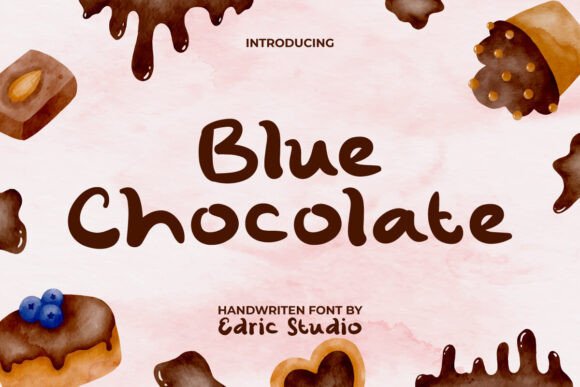
Introducing Blue Chocolate Font: The Sweetest Addition to Your Design Collection
Are you on the hunt for a font that’s as delightful as it is versatile? Look no further than Blue Chocolate Font, a beautiful bubbly typeface that’s sure to add a touch of whimsy to any design project. In this article, we’ll dive into the features and benefits of Blue Chocolate Font, and explore the many ways you can use it to elevate your designs.
A Font That’s as Sweet as Chocolate
Blue Chocolate Font is a carefully crafted typeface that comes with a full set of uppercase and lowercase basic characters, numbers, punctuation, and symbols. This means you can use it for a wide range of design projects, from creating eye-catching ads and animations to crafting charming invitations and packaging. The font’s playful, cursive style is reminiscent of childhood treats and happy memories, making it perfect for brands and designers who want to evoke a sense of fun and nostalgia.
Perfect for a Variety of Industries
One of the best things about Blue Chocolate Font is its versatility. Its adorable, bubbly style makes it suitable for a wide range of industries, including:
• Ads and advertising agencies
• Animation and film studios
• Cafes and restaurants
• Chocolate manufacturers and bakeries
• Comics and graphic novels
• Content creators and bloggers
• Culinary schools and cooking classes
• Event and festival organizers
• Fashion brands and designers
• Film and movie production companies
• Graphic design studios
• Handicraft and artisanal businesses
• Homeware and furniture stores
• Movie theaters and cinemas
• Photography studios and professionals
• Playgrounds and children’s entertainment centers
• Printing and publishing companies
• Retail stores and e-commerce sites
• Snacks and food manufacturers
• Travel and tourism agencies
• Vacation rental properties and hotels
Why Choose Blue Chocolate Font?
So why should you choose Blue Chocolate Font for your next design project? Here are just a few reasons:
• Unique and eye-catching style: Blue Chocolate Font has a one-of-a-kind, bubbly style that’s sure to grab attention and make your designs stand out.
• Highly versatile: With a full set of uppercase and lowercase characters, numbers, punctuation, and symbols, Blue Chocolate Font can be used for a wide range of design projects.
• Easy to read: Despite its playful style, Blue Chocolate Font is highly legible, making it perfect for use in body text, headings, and titles.
• Perfect for branding: Blue Chocolate Font’s unique style and whimsical feel make it an excellent choice for branding and packaging design.
How to Use Blue Chocolate Font
Now that you know a little bit about Blue Chocolate Font, let’s talk about how to use it. Here are a few ideas to get you started:
• Create eye-catching ads and posters: Use Blue Chocolate Font to create bold, attention-grabbing headlines and titles that will draw customers in.
• Design charming packaging: Add a touch of whimsy to your product packaging with Blue Chocolate Font, perfect for food, fashion, and lifestyle brands.
• Craft engaging social media graphics: Use Blue Chocolate Font to create fun, shareable graphics for social media, including Facebook, Instagram, and Twitter.
• Develop a brand identity: Use Blue Chocolate Font as part of a comprehensive brand identity package, including logos, business cards, and letterhead.
Font Name Blue Chocolate Font
Author EdricStudio
In conclusion, Blue Chocolate Font is a sweet and versatile typeface that’s perfect for designers and crafters looking to add a touch of whimsy to their designs. With its full set of uppercase and lowercase characters, numbers, punctuation, and symbols, it’s suitable for a wide range of industries and design projects. Whether you’re creating ads, packaging, social media graphics, or branding materials, Blue Chocolate Font is sure to delight. So why wait? Download Blue Chocolate Font today and start creating your own sweet designs!